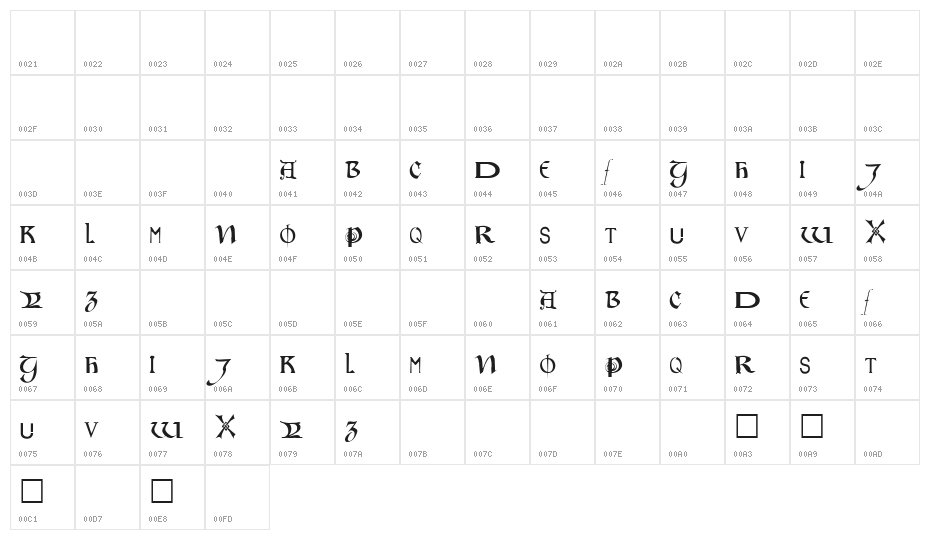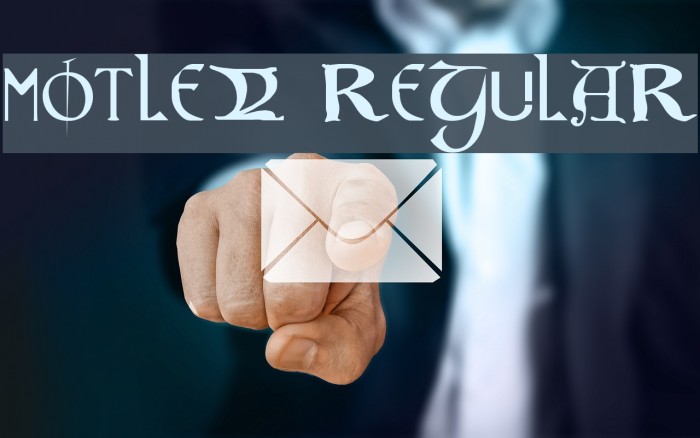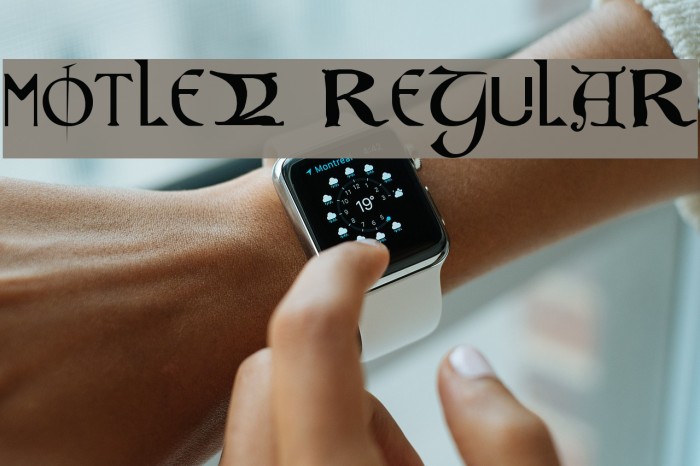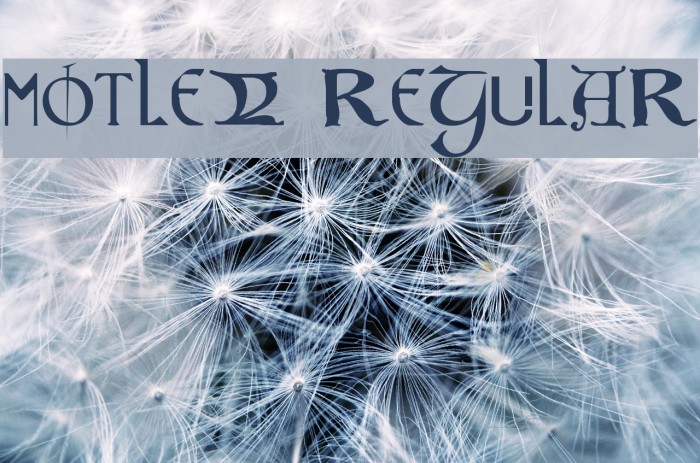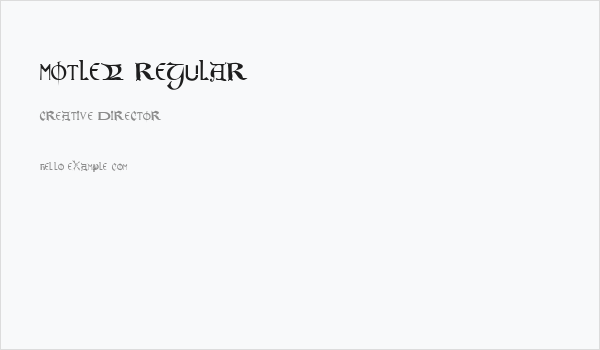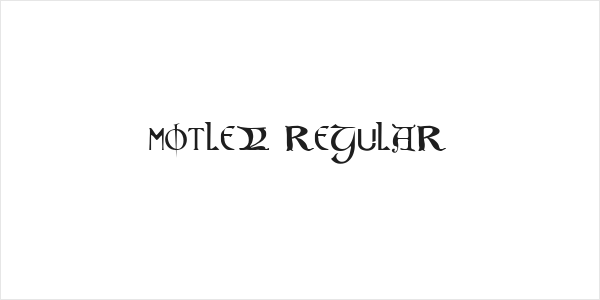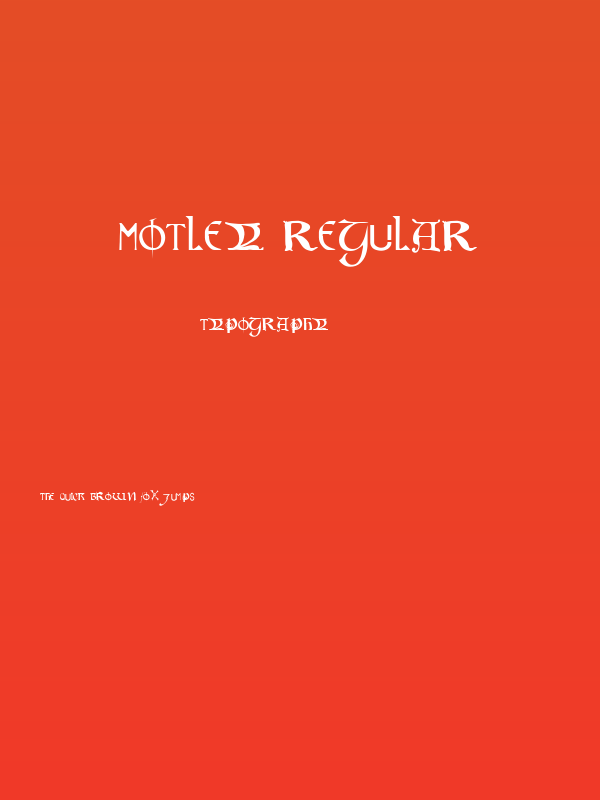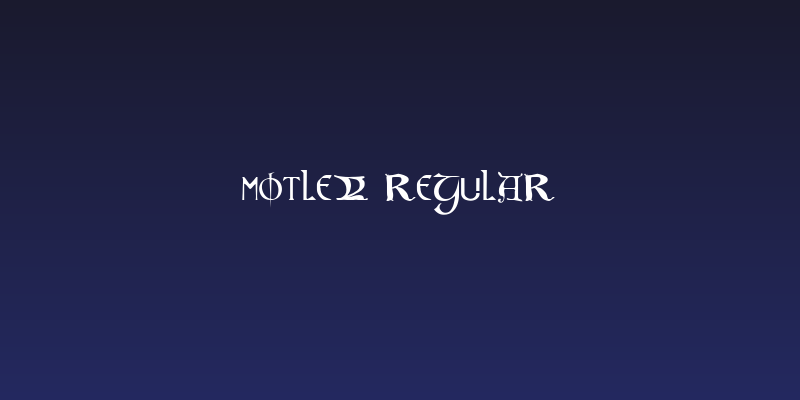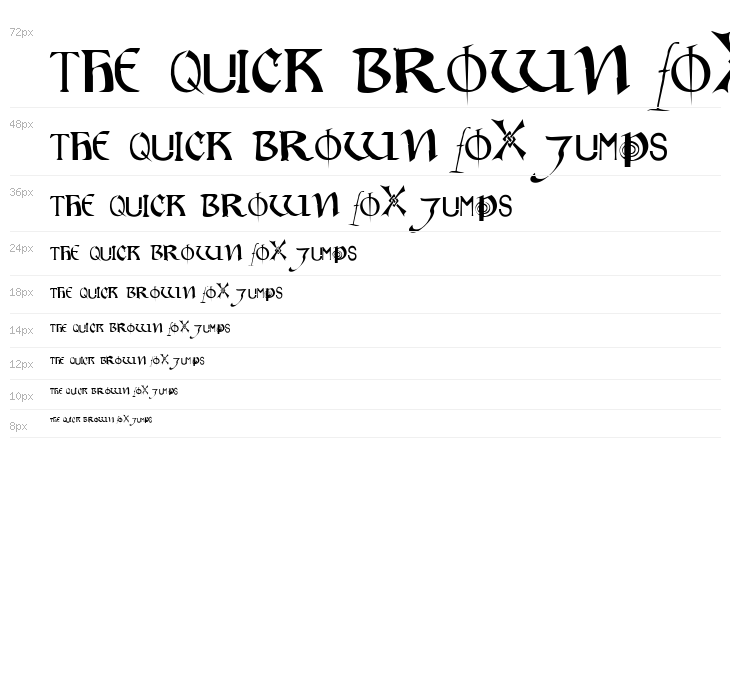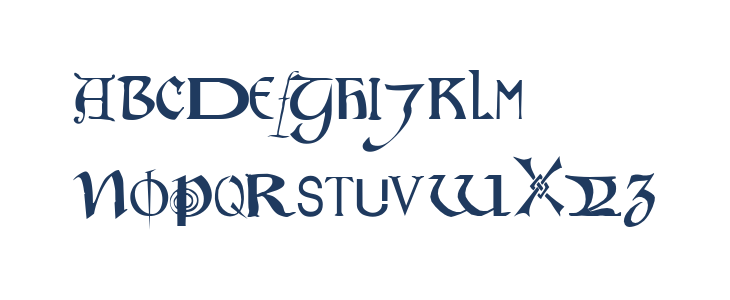
Motley Regular Font
Motley Regular Description
This font features a unique and artistic design, blending elements of medieval and gothic styles. The characters are highly decorative, with intricate details and flourishes that give it a distinct personality. The uppercase letters are bold and commanding, while the lowercase letters maintain a consistent style with a slightly more delicate touch. The numerals and special characters are equally ornate, ensuring a cohesive look across all text. This font's intricate design makes it stand out, perfect for projects that require a touch of elegance and historical flair.
| Proposed Projects | Ideal for fantasy-themed designs, book covers, posters, and branding that requires a historical or gothic touch. |